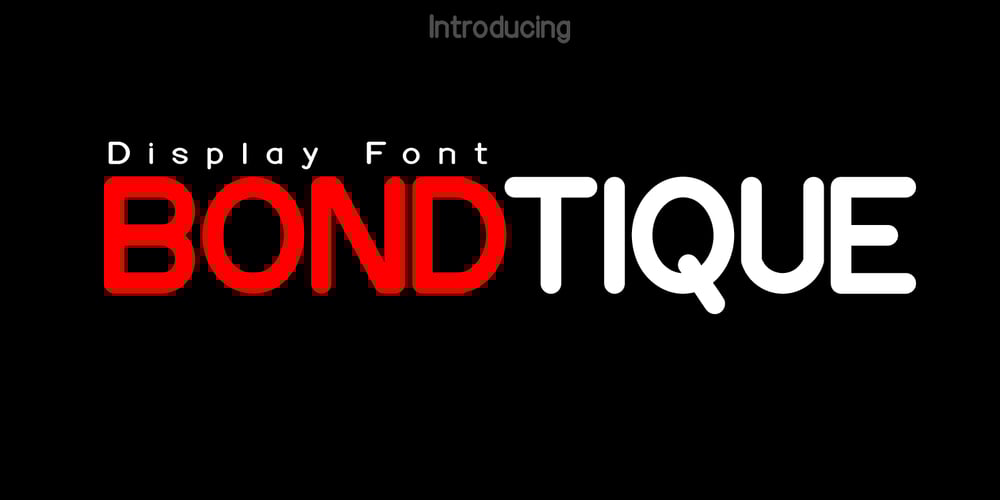
Bondtique Font Family was designed by Fauzul Azmi and published by PojolType. Bondtique contains 1 styles and family package options. Bondtique is inspired by the writing of books or plain text with the same thickness and the standard typeface can be used for magazines, logos, branding, web, posters, movies and films.